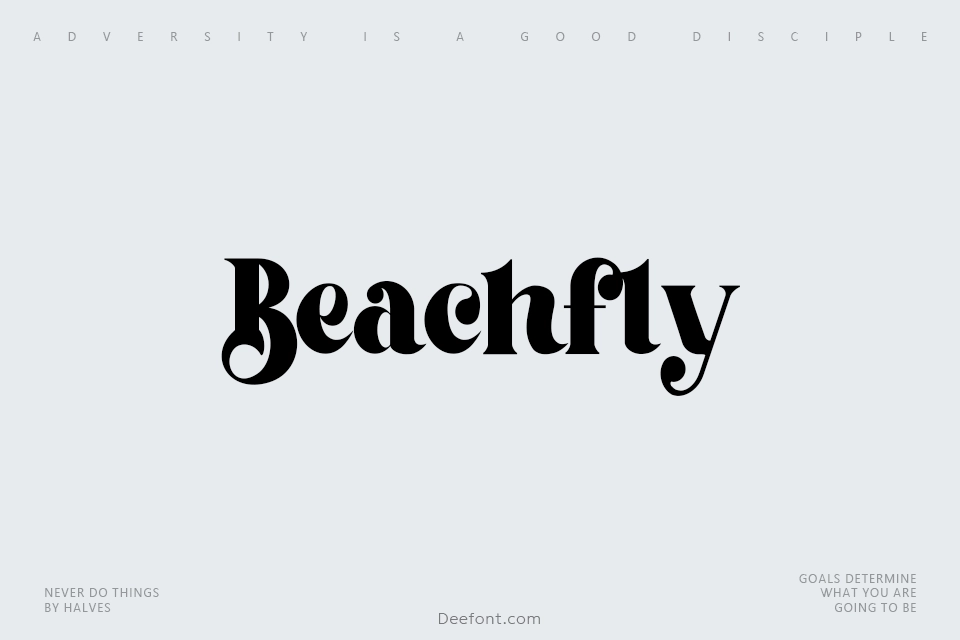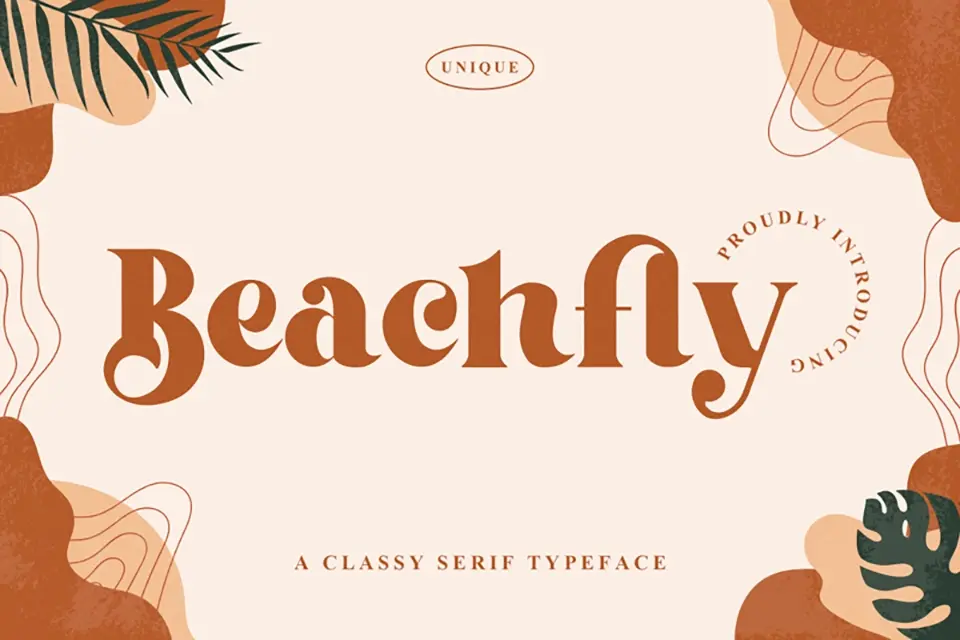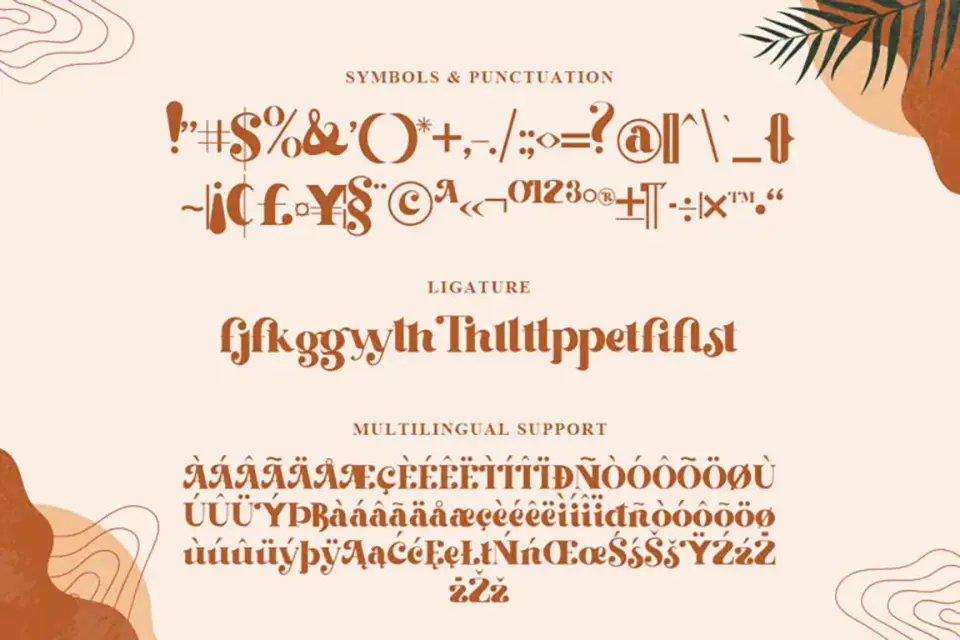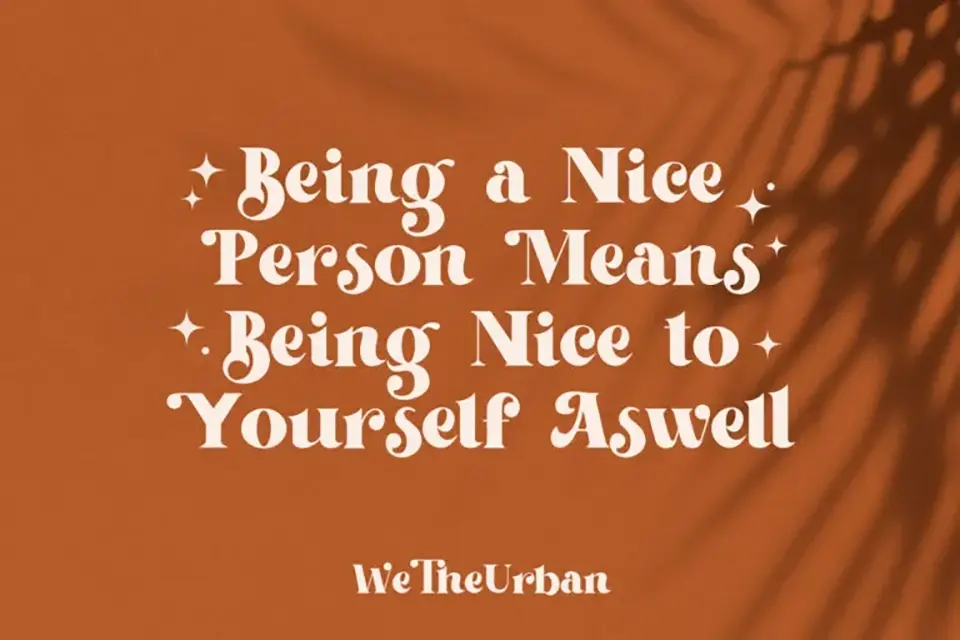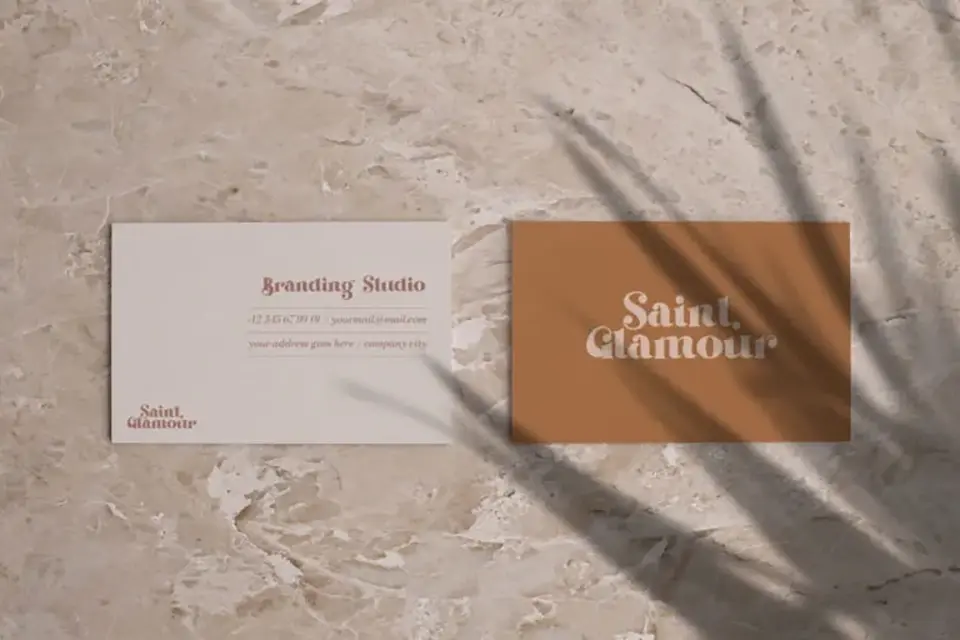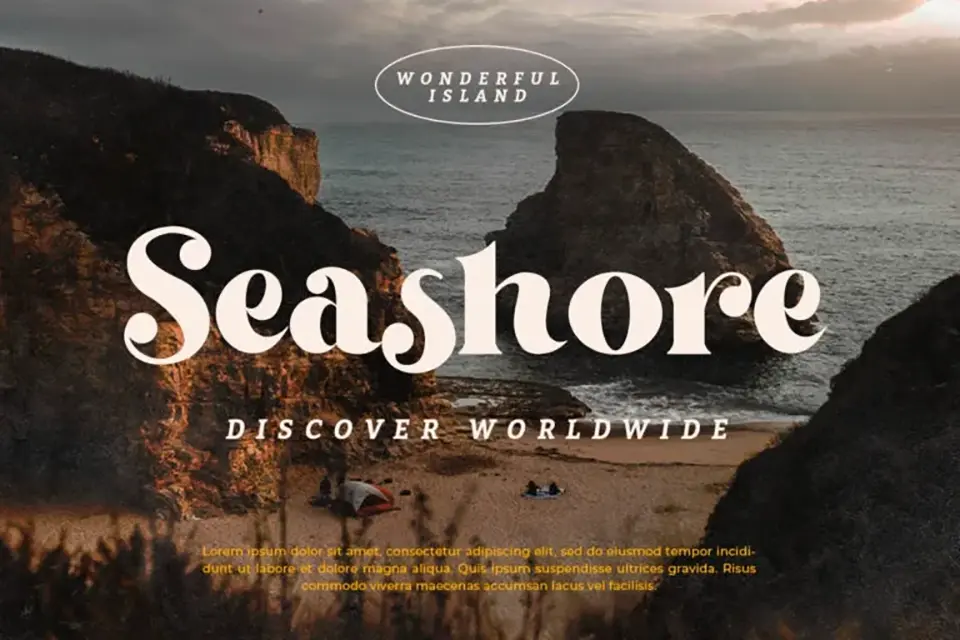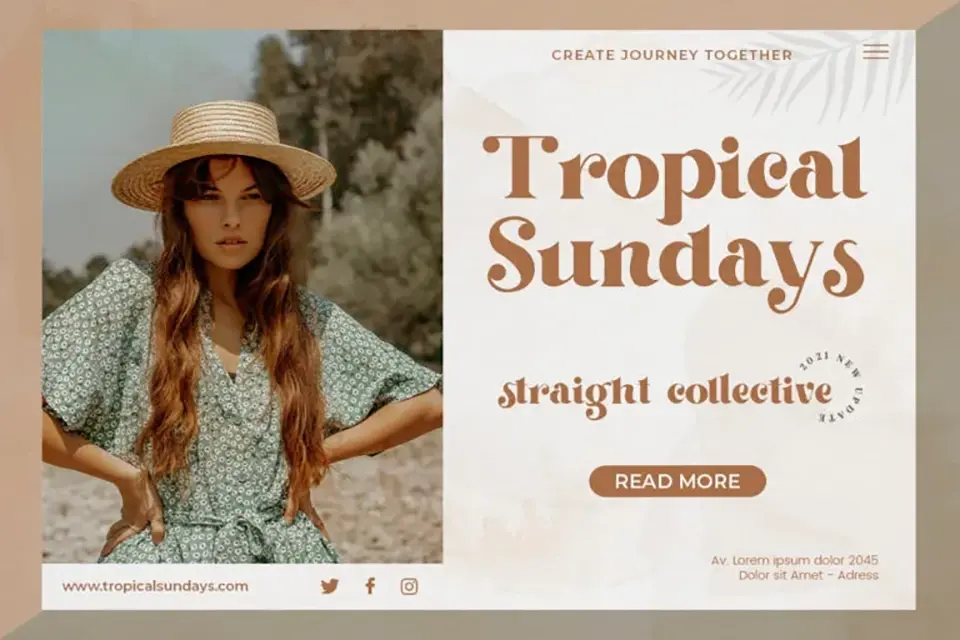
Beachfly Font
Beachfly is a distinctive retro serif typeface that combines classic elegance with vintage charm and playful cuteness. Designed by Typefactoryco and featuring multilingual support with 249 glyphs, this versatile font excels in wedding invitations, social media graphics, greeting cards, and display applications. With its unique blend of timeless serif styling and contemporary versatility, Beachfly brings life and energy to any creative project seeking a touch of nostalgic sophistication and visual appeal.